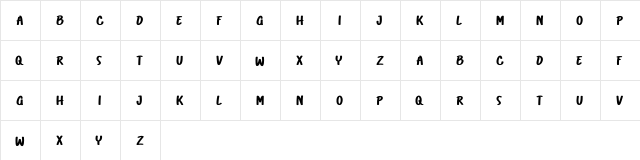
Cosmix Black
Design Context for Cosmix Typeface
Cosmix is a composed and adaptable typeface that performs quietly and consistently across a wide range of design contexts.